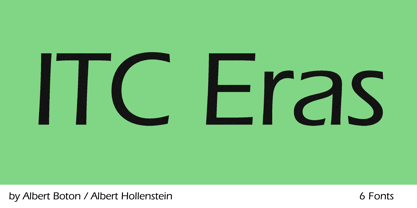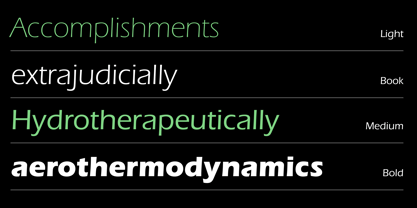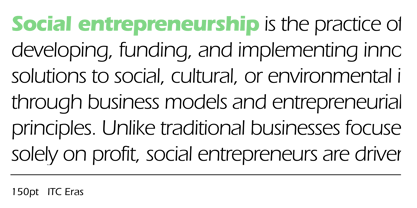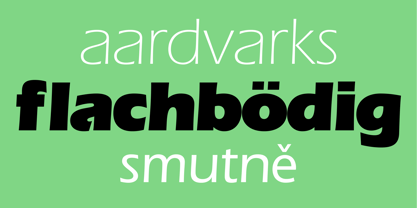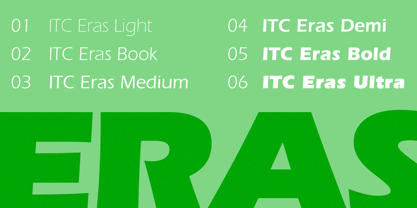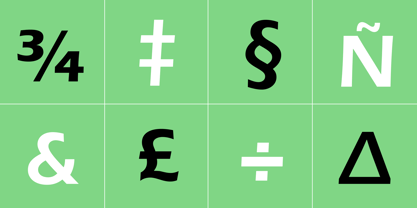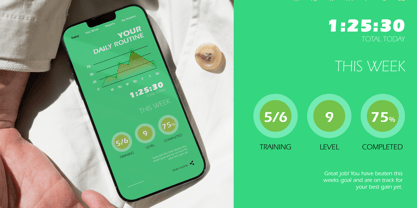
ITC Eras
Die Schriftfamilie ITC Eras wurde von Albert Hollenstein, Albert Boton entworfen und von ITC veröffentlicht. ITC Eras enthält 6 Stile und Familienpaketoptionen.
ITC Eras® is a distinctive, yet highly legible, sans serif font family – a delightful blend of panache and practicality, with an angled, rather than vertical, stress and proportions that are more Roman than geometric. ITC Eras is a modern classic that can be used wherever a readable – but not generic – sans serif is called for. Drawn by Albert Boton and Albert Hollenstein and released in 1976, this dynamic sans serif is distinguished by a subtle forward slant, generous x-height, and slight variations in stroke weight.
ITC Eras® brings warmth, motion, and clarity to every application. It's also ideal as a forward-leaning corporate typeface, offering subtle energy without sacrificing legibility. It can be the perfect design for interfaces, packaging, and motion branding. ITC Eras’ Book weight communicates reliability and clarity in professional documents, while the Bold styles deliver high‑impact presence in tech-forward brand campaigns – especially in the luxury automotive space, where refined typography meets high-speed aesthetics.
If your project calls for an eye-catching typeface that will create a look as well as deliver a readable message, ITC Eras is an excellent place to start. People notice this typeface. ITC Eras is also easy on the eyes in blocks of text copy, making it an excellent choice for brochures, ads, posters, menus, and package design.
Designer: Albert Hollenstein, Albert Boton